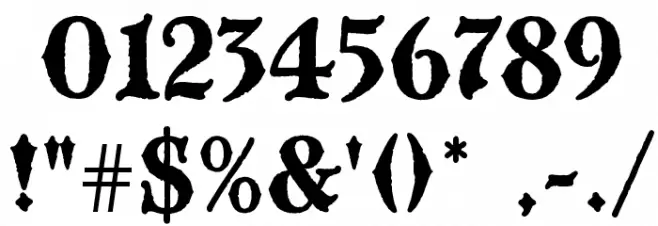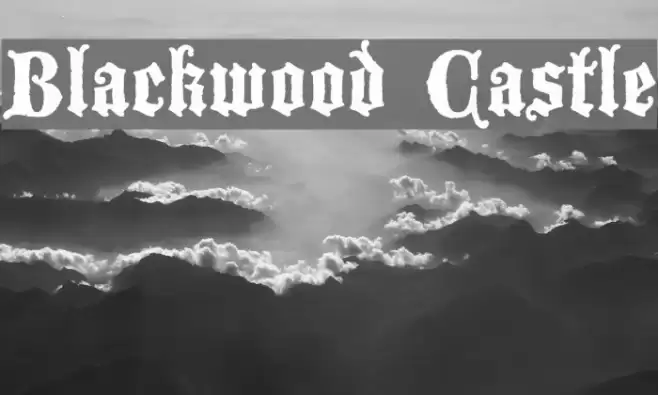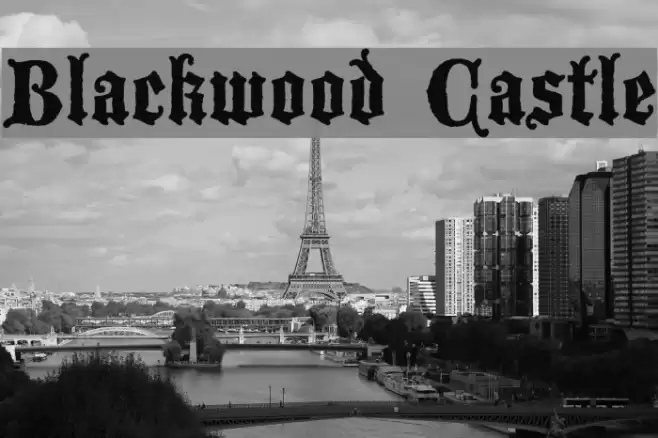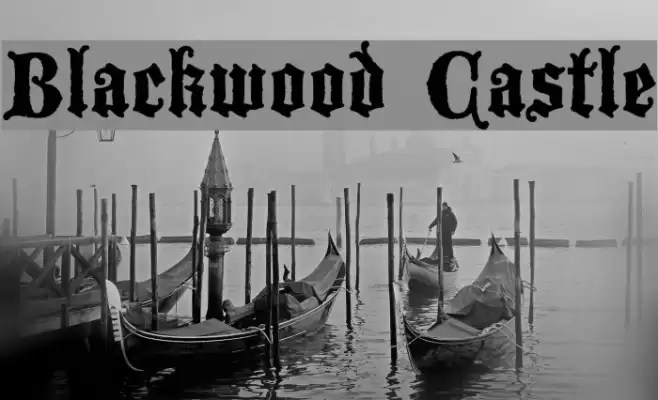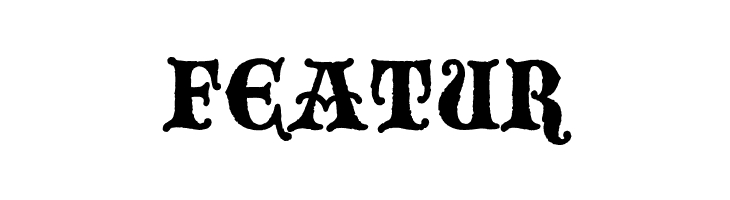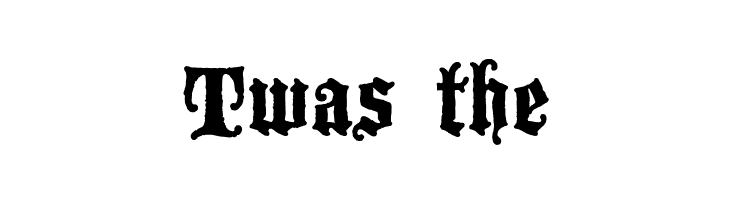
Blackwood Castle Font
Blackwood Castle Description
This font exudes a medieval and gothic charm, characterized by its intricate and ornate letterforms. The uppercase letters are bold and commanding, with sharp serifs and decorative elements that evoke a sense of history and tradition. The lowercase letters maintain the same level of detail, offering a cohesive look across the typeface. Numbers and special characters are equally elaborate, ensuring consistency throughout. This font is perfect for projects that require a touch of elegance and antiquity, such as historical documents, fantasy-themed designs, or branding that seeks to convey a sense of heritage.
A gothic, medieval-style font with ornate and intricate letterforms from Uncategorized fonts.
• Proposed Projects: Ideal for historical documents, fantasy-themed designs, or branding with a heritage focus.
• Contrast: High
• Overall Style: Vintage
• Use Case: Logos, Headlines